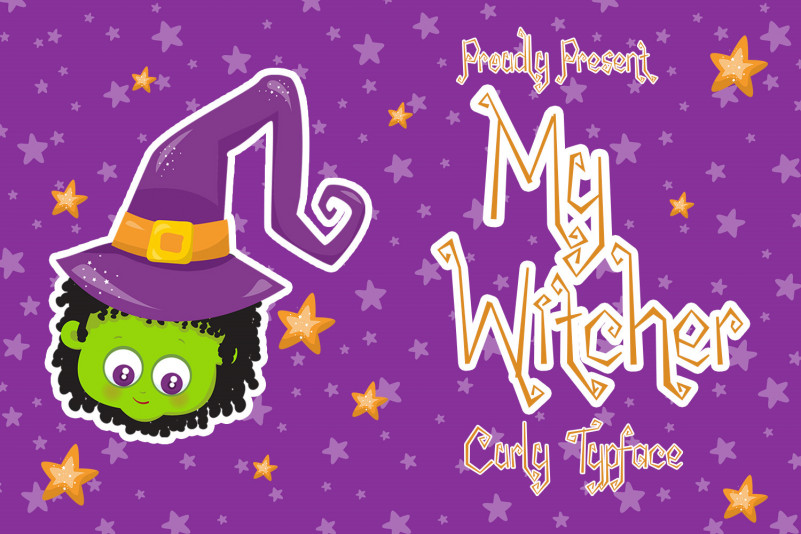
My Witcher Font
My Witcher Display Font
This is a unique and interesting display font. A little bit quirky, this font looks incredibly adept on a wide variety of Halloween designs!